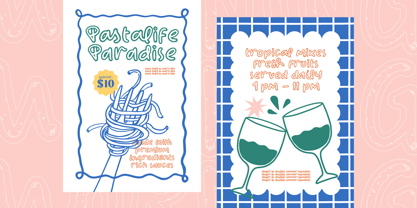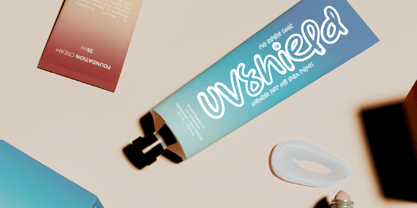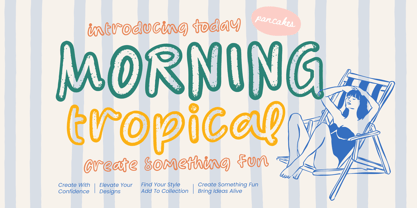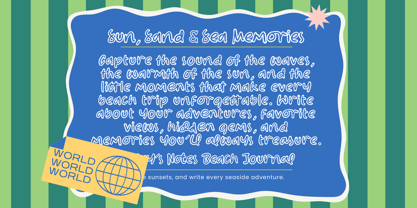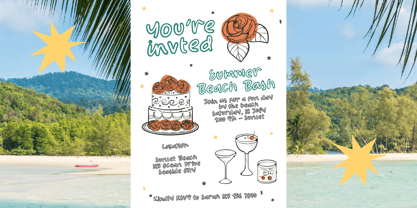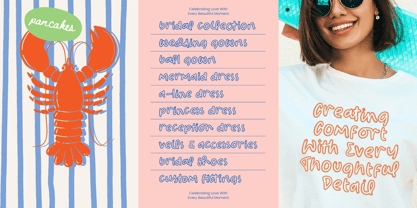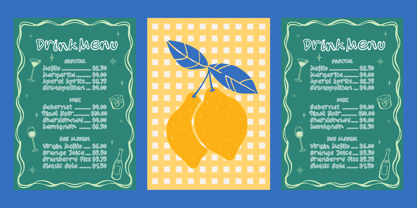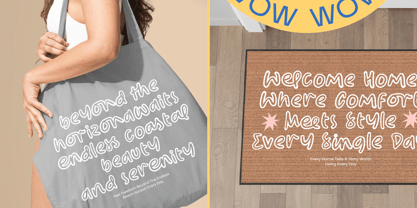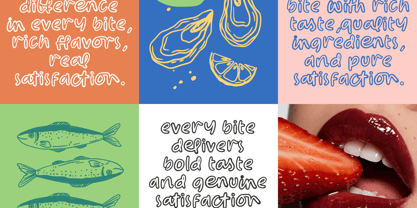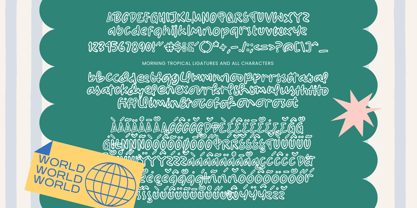
Morning Tropical
by Stylishtype Studio
The Morning Tropical Font Family was designed by Heru Utama Putra and published by Stylishtype Studio. Morning Tropical contains 2 styles and family package options. More about this family
Wake up your designs with the sunshine-infused energy of Morning Tropical - Playful Bubble Font, a typeface that captures the essence of a perfect vacation morning. It is the ultimate choice for creators looking to inject a sense of joy and effortless cool into their next big project.
Inspired by the fluid shapes of 90s streetwear and the organic curves found in coastal landscapes, this font brings a breezy, salt-water atmosphere to your screen. It is reminiscent of handwritten cafe signs and surf shop posters, offering a nostalgic yet fresh take on decorative lettering.